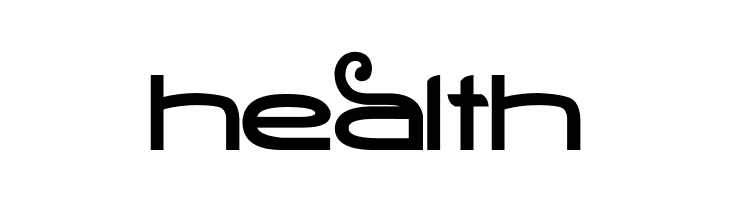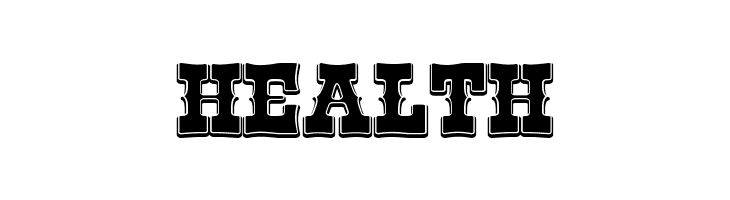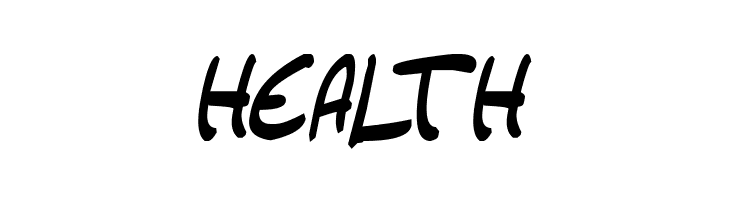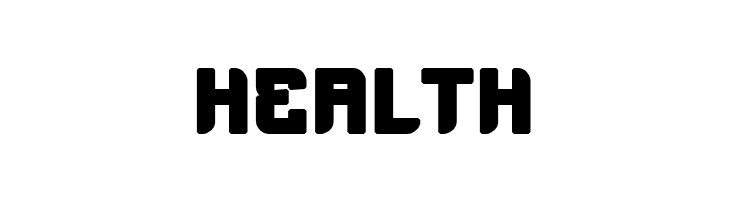
A bold, futuristic font with geometric shapes and smooth curves.
A bold, italic font with a dynamic and modern style.
A sleek, modern, bold italic font with consistent stroke thickness.
A bold, geometric font with sharp angles and a blocky appearance.
A bold, italicized handwritten font with a dynamic and modern style.
A bold, Western-style slab serif font with thick strokes and a strong presence.
A bold, geometric font with thick, blocky characters for strong visual impact.
A bold, angular font with a strong, geometric presence.